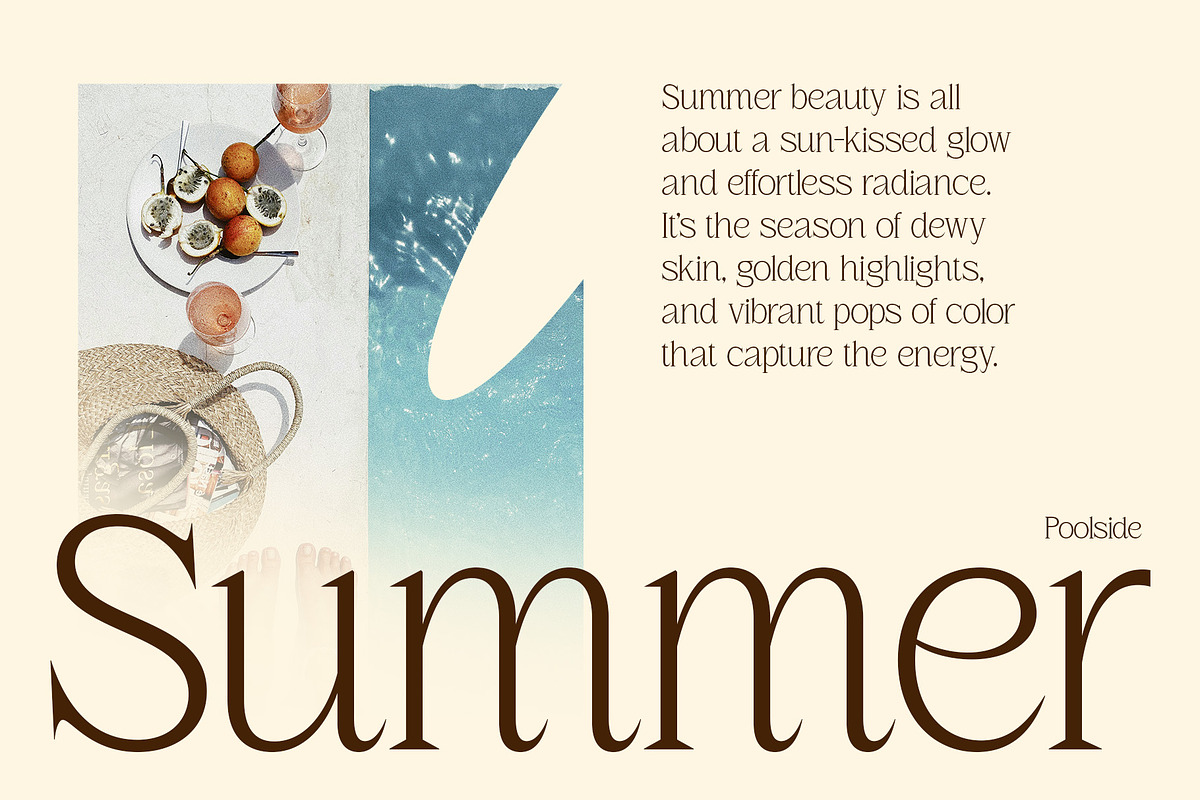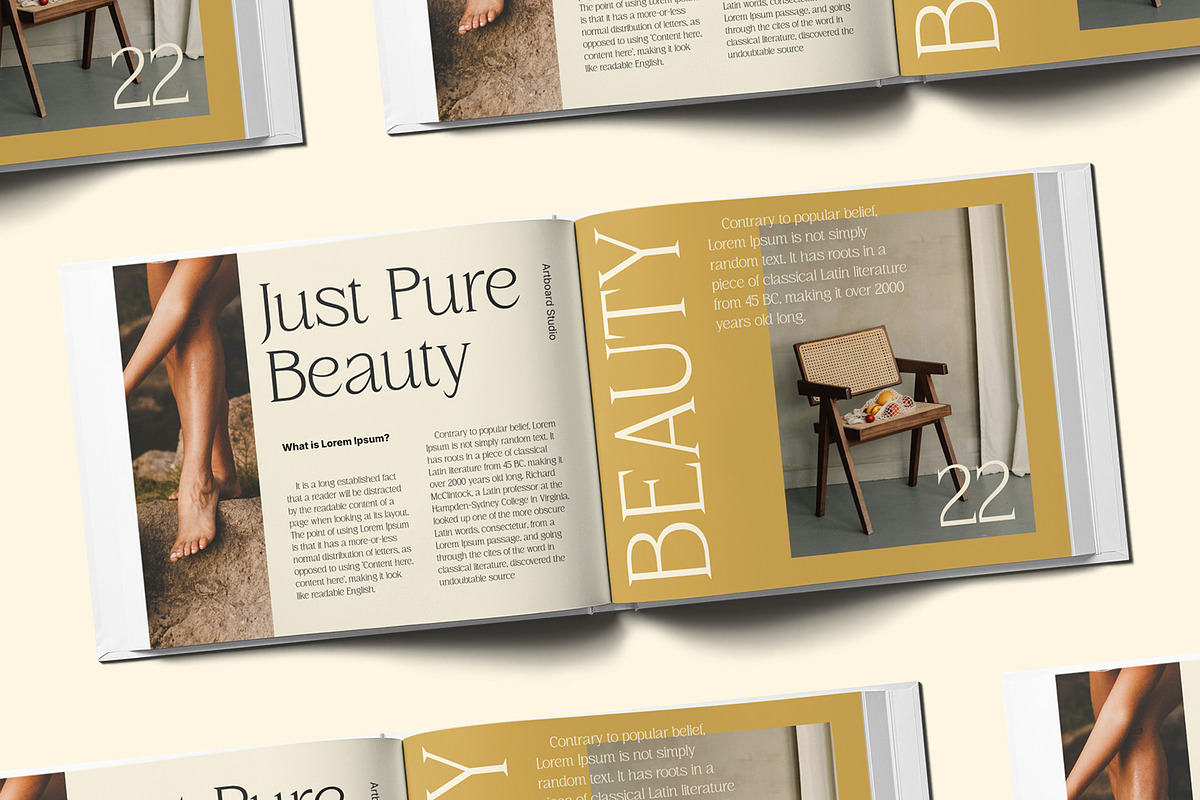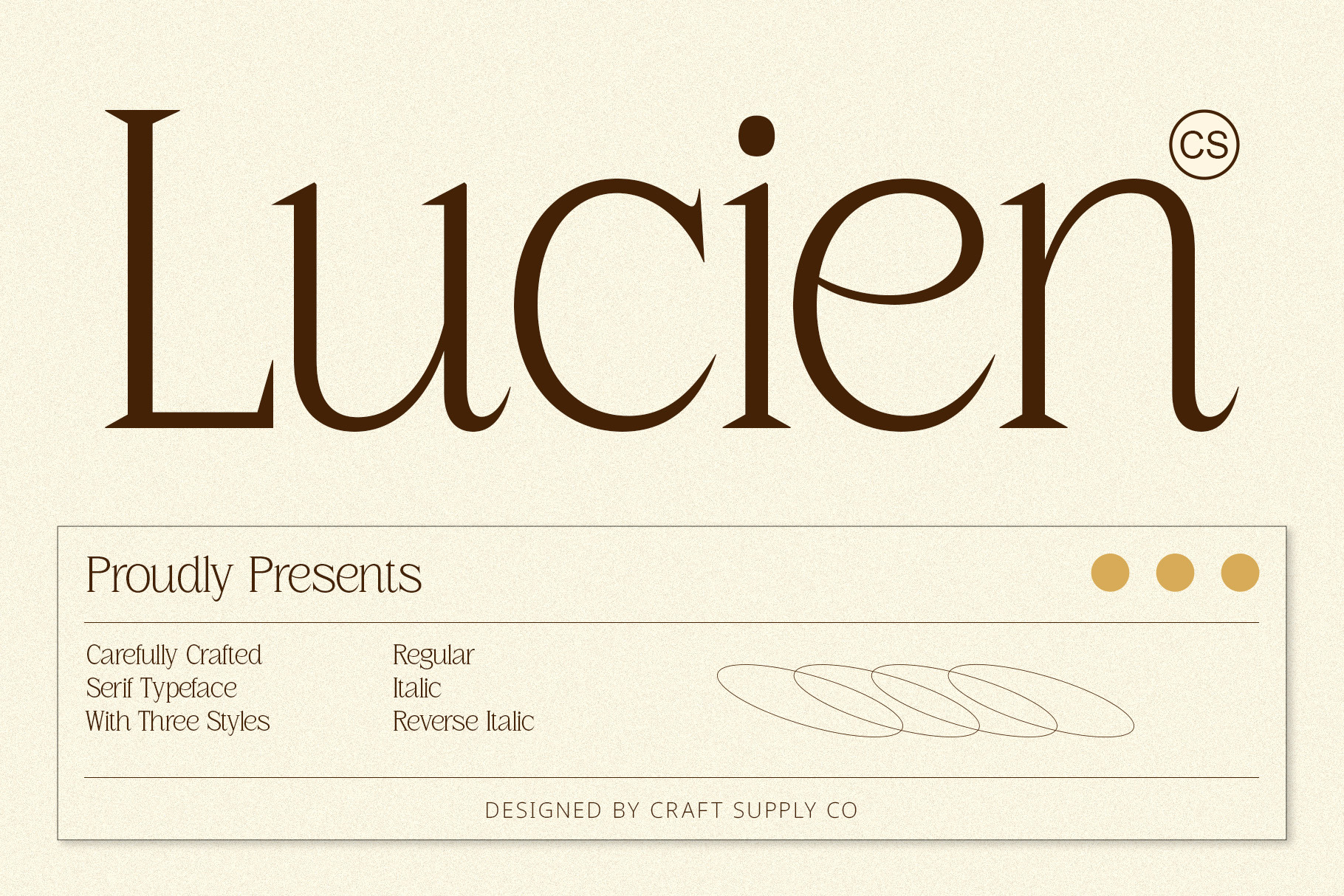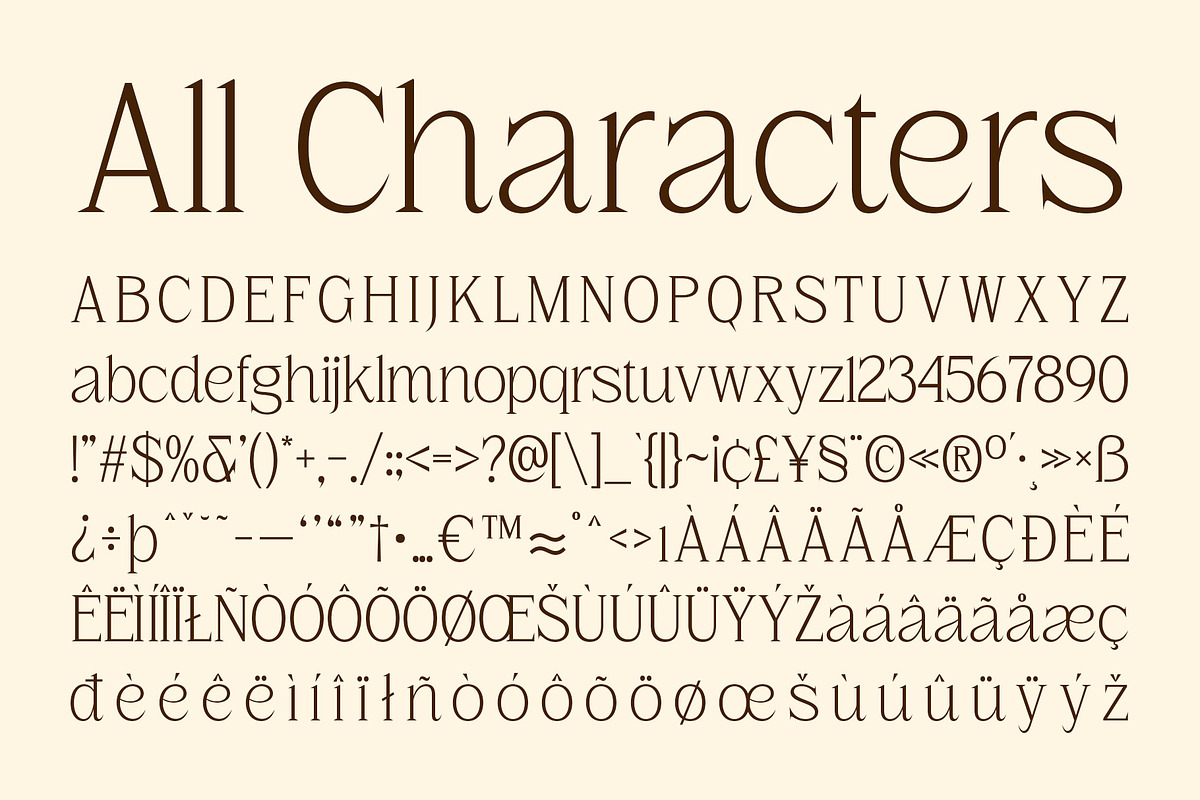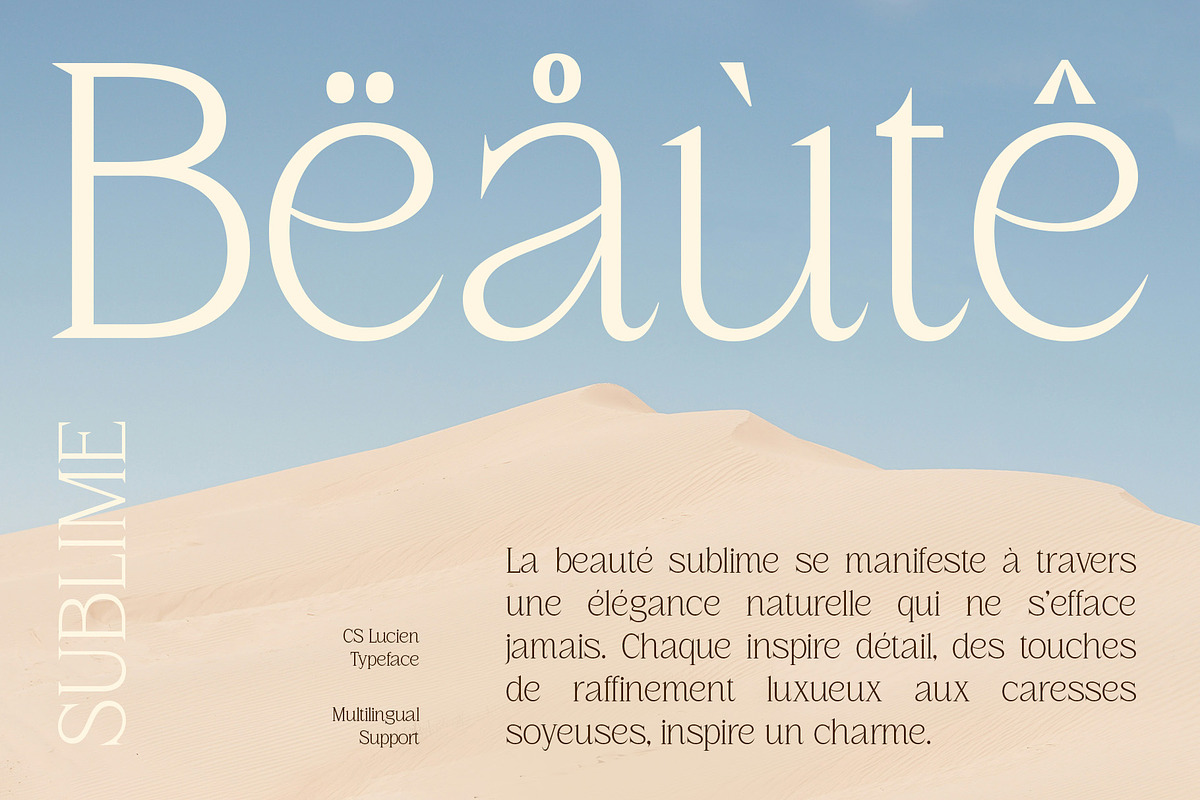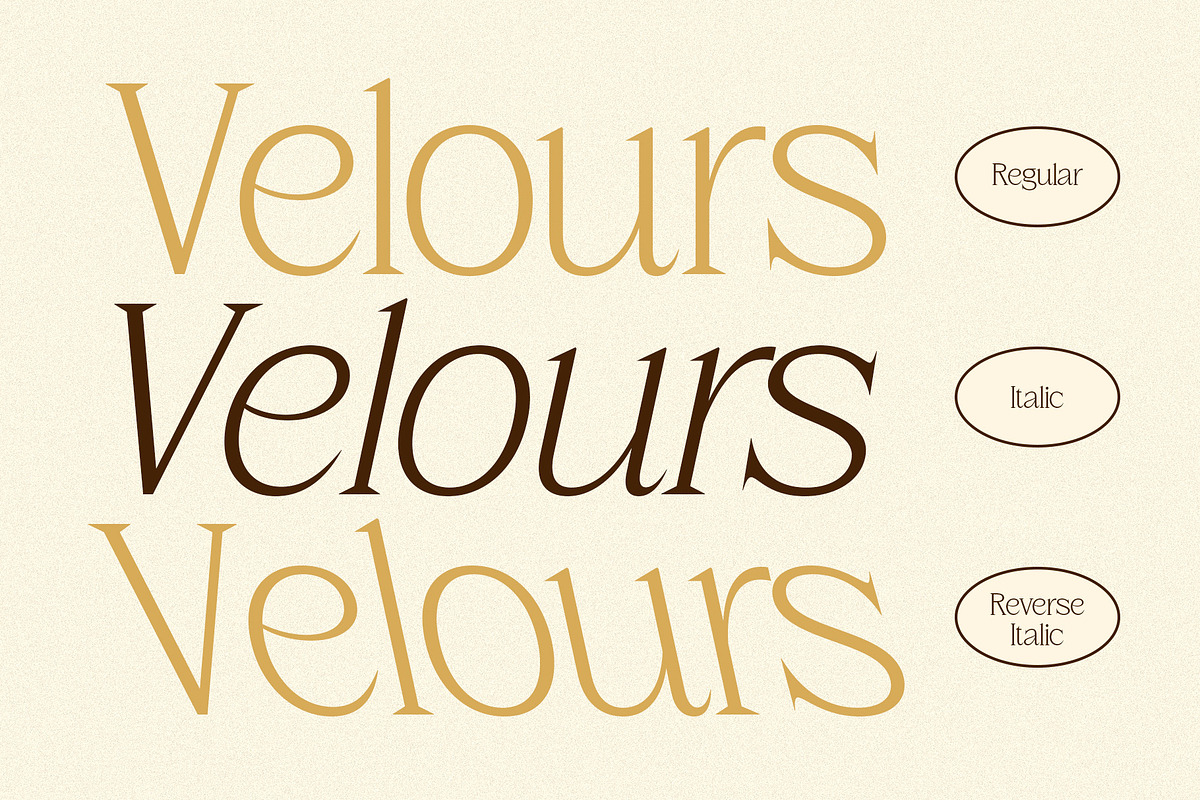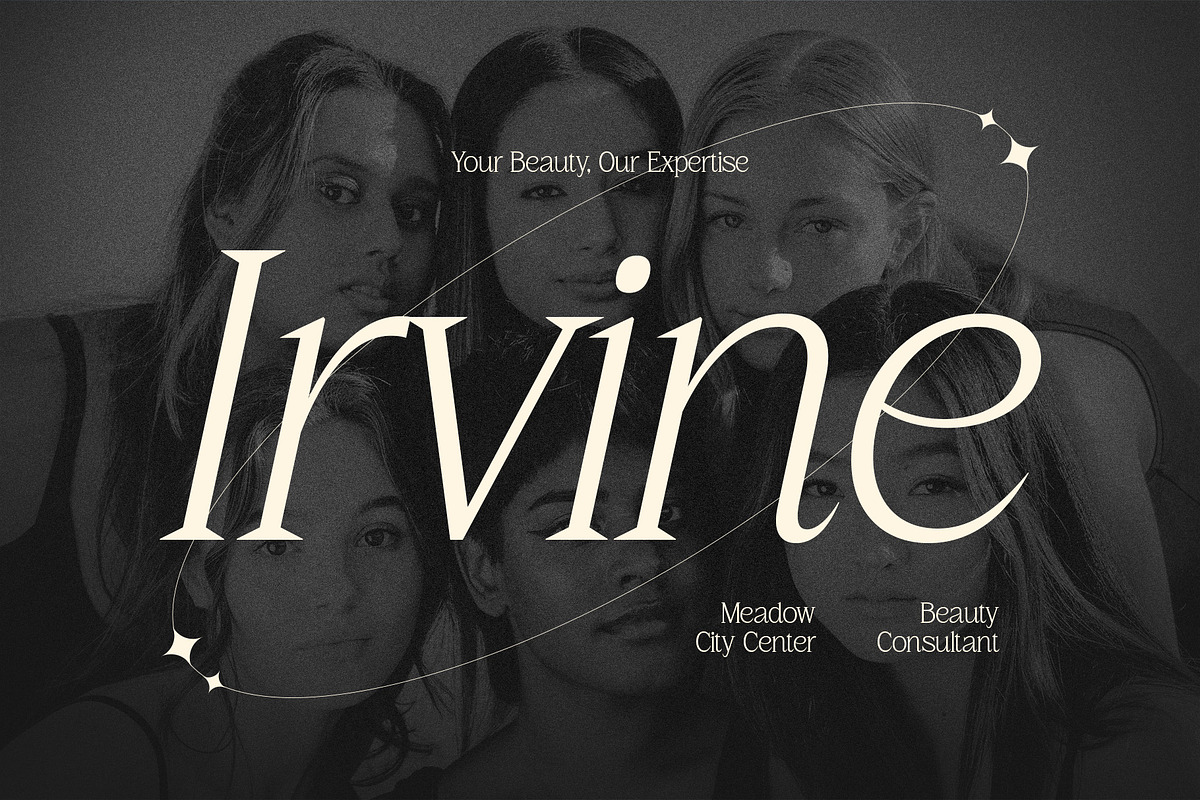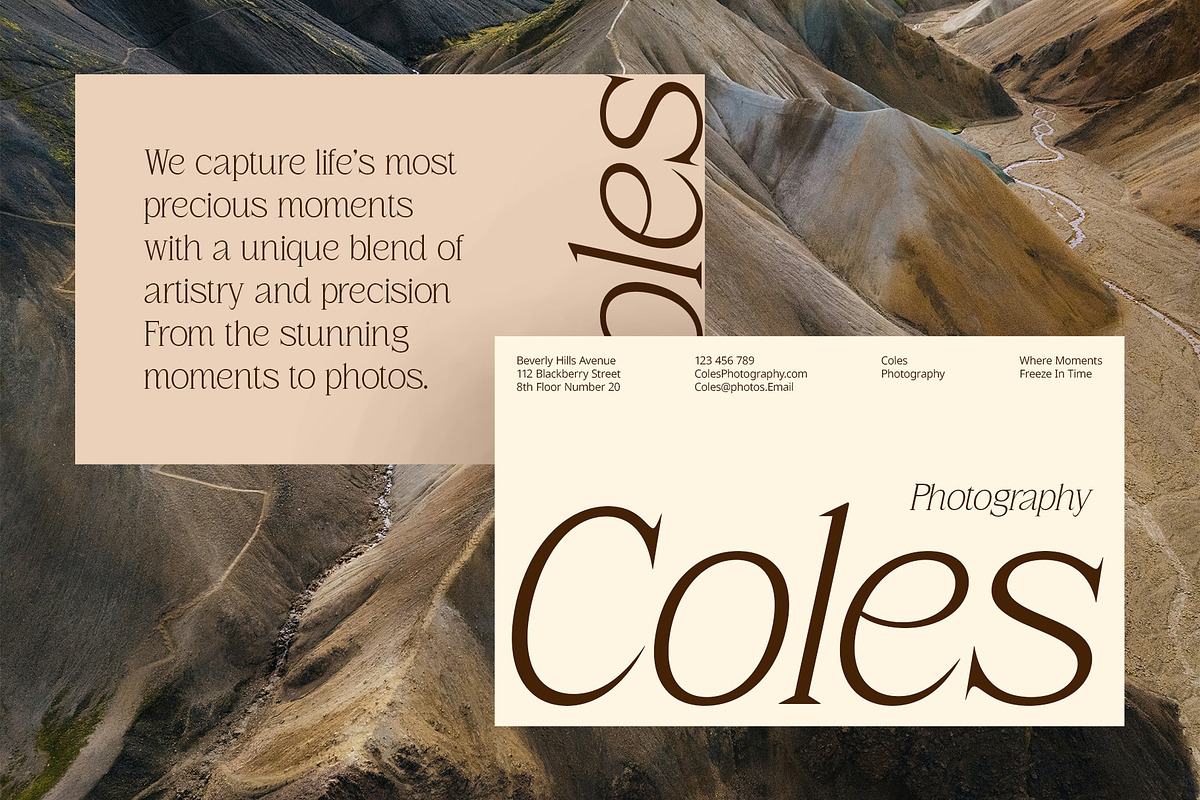
CS Lucien – Elegant Font
CS Lucien Font: Refined and Minimalist Serif Font
Elegance in Simplicity CS Lucien is a modern serif font that embodies clean, minimalist design with a focus on slender, proportional lines. Its refined simplicity creates an elegant and sophisticated appearance, making it perfect for projects that prioritize clarity and professionalism. The font’s balanced letterforms exude a timeless charm, offering a stylish and polished aesthetic for a wide range of applications.
Versatility and Readability With its sleek design and fine details, CS Lucien ensures optimal readability without sacrificing visual appeal. The clarity of its letterforms makes it an ideal choice for branding, editorial layouts, and print materials that demand both elegance and functionality. Whether used in logos, brochures, or websites, this font’s versatile nature makes it well-suited for various modern design needs.
Perfect for Professional Designs CS Lucien’s sophisticated and clean look makes it an excellent choice for projects that require a professional touch. Its minimalistic yet charming design radiates refinement, making it ideal for high-end branding, corporate presentations, or luxury packaging. The font’s contemporary aesthetic appeals to those who value sleek design with an emphasis on elegance.
- CS Lucien Regular
- CS Lucien Italic
- CS Lucien Reverse Italic